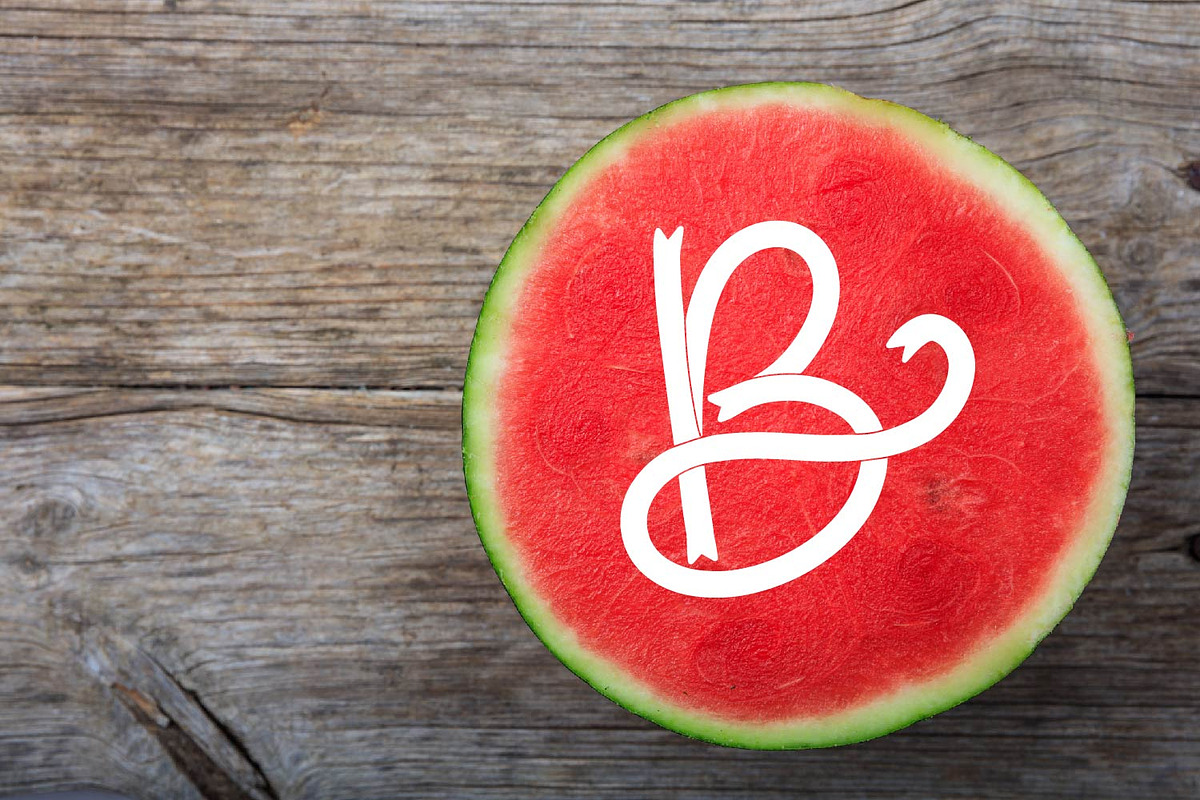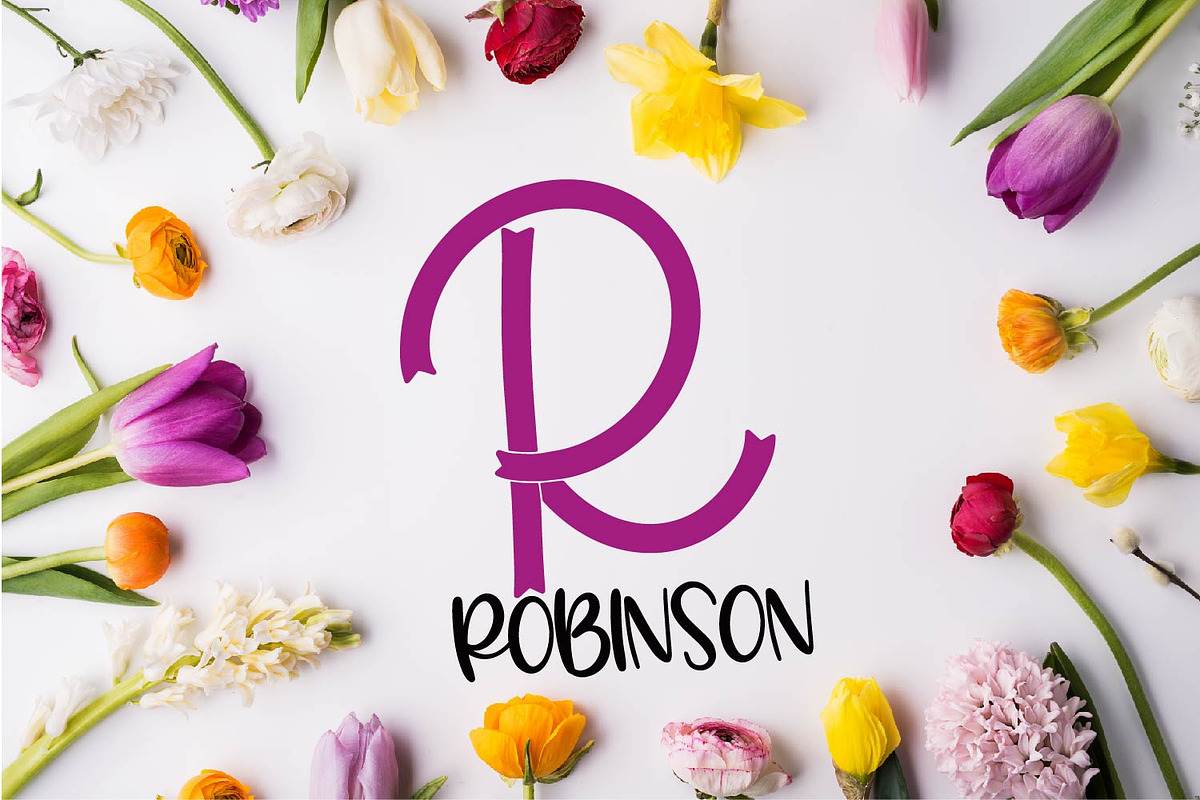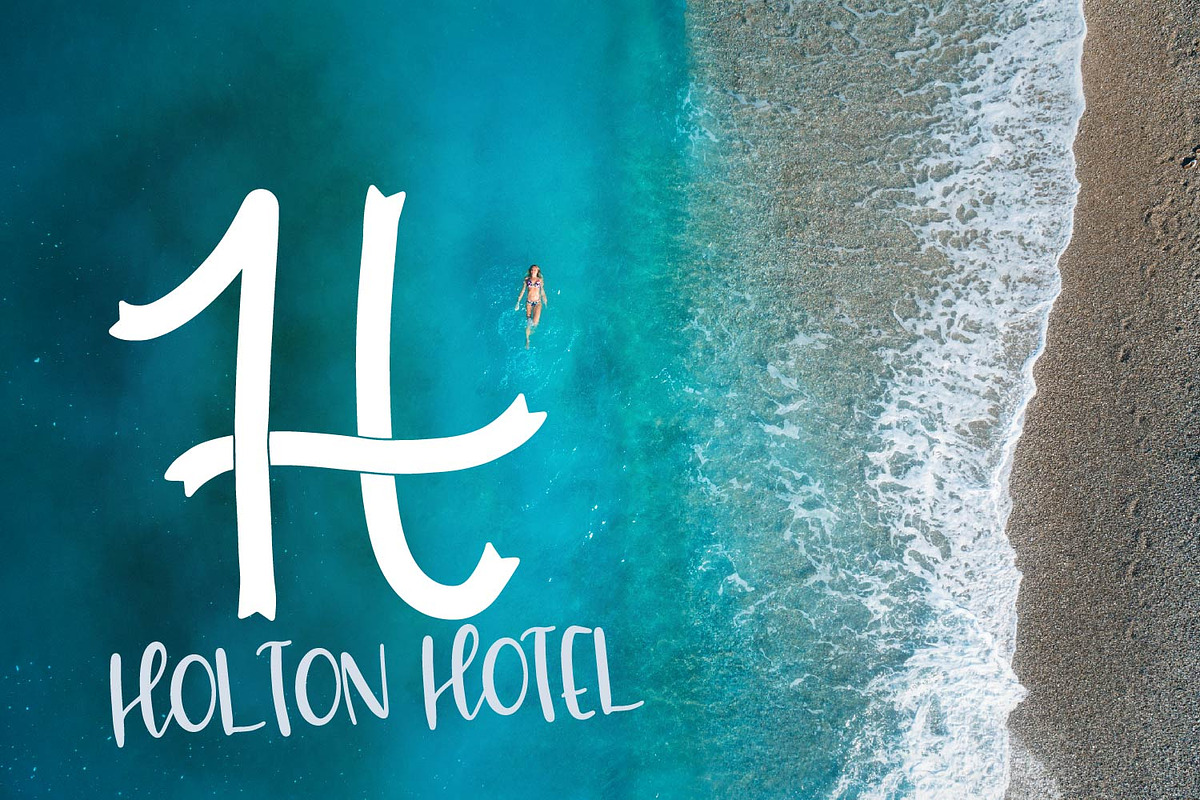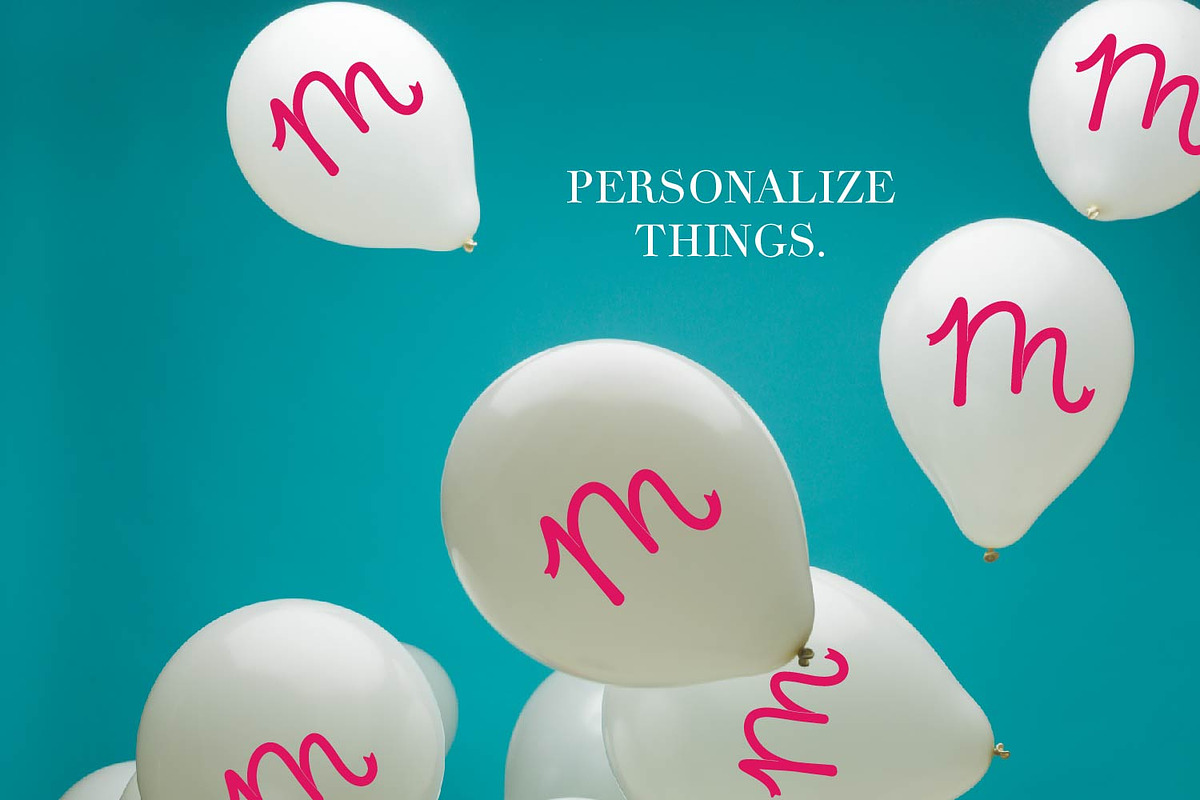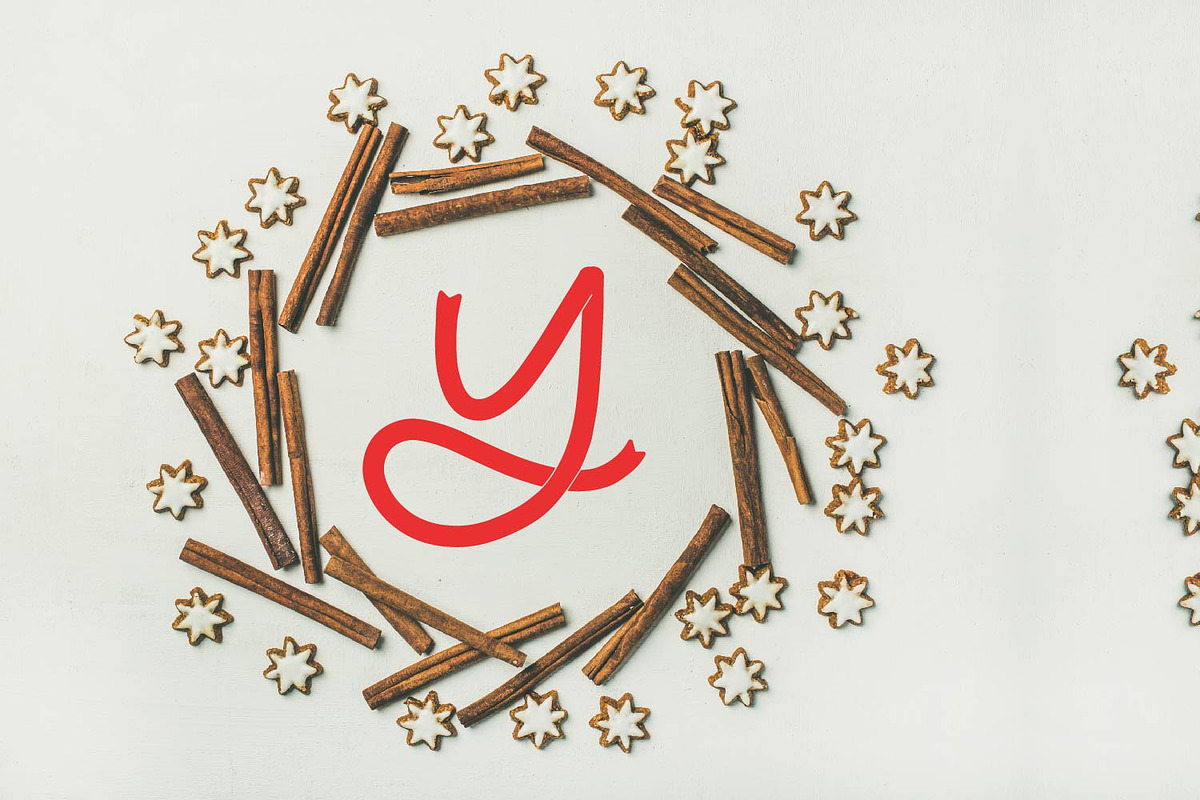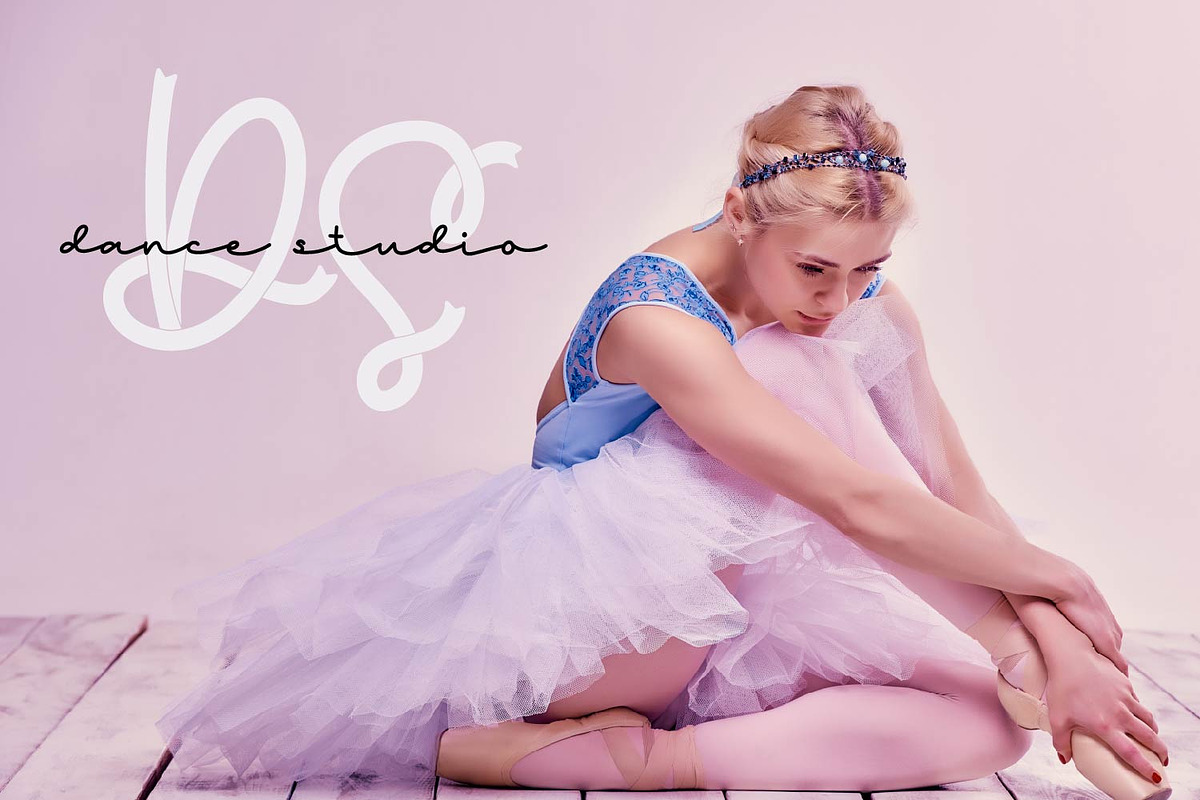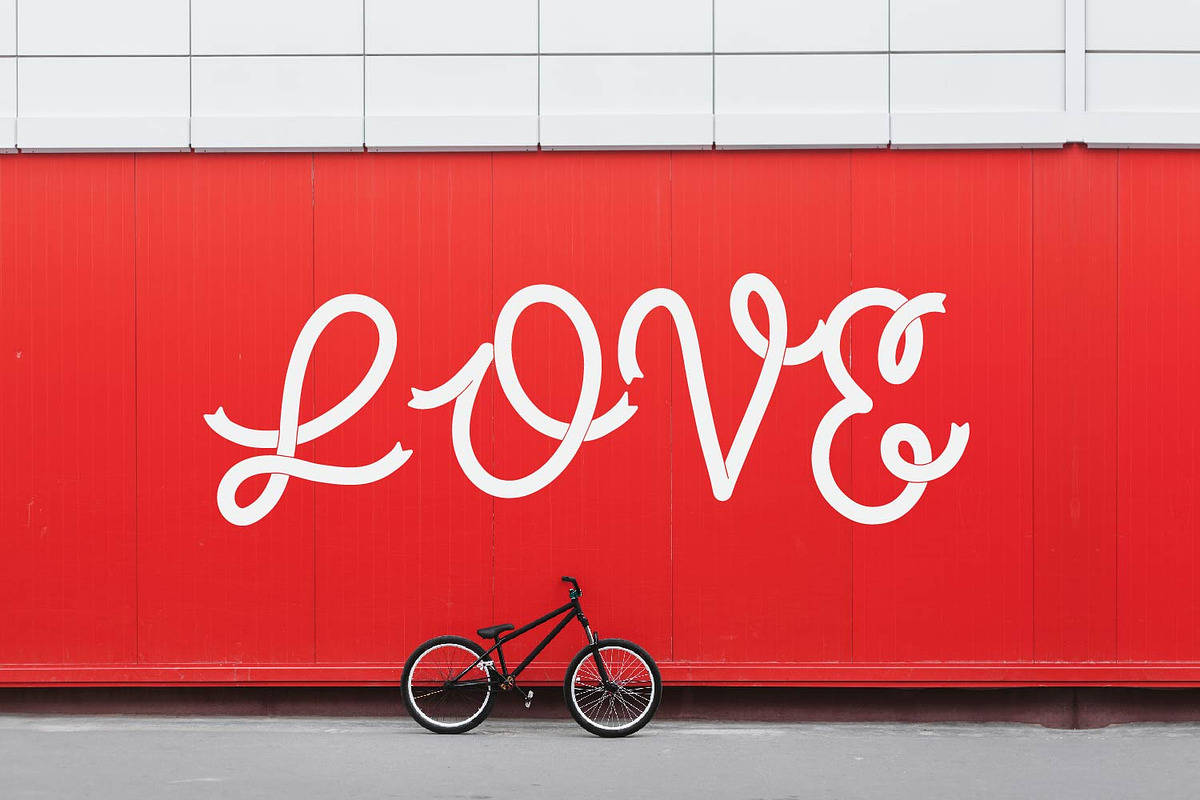
Brave - A Ribbon Monogram Font
Brave A Ribbon Monogram Font by CraftyLittleNodes is a font selected for branding, posters, packaging, typography.
Why Brave - A Ribbon Monogram Font is worth a look
Brave - A Ribbon Monogram Font by CraftyLittleNodes fits naturally into Branding, posters, packaging, typography.